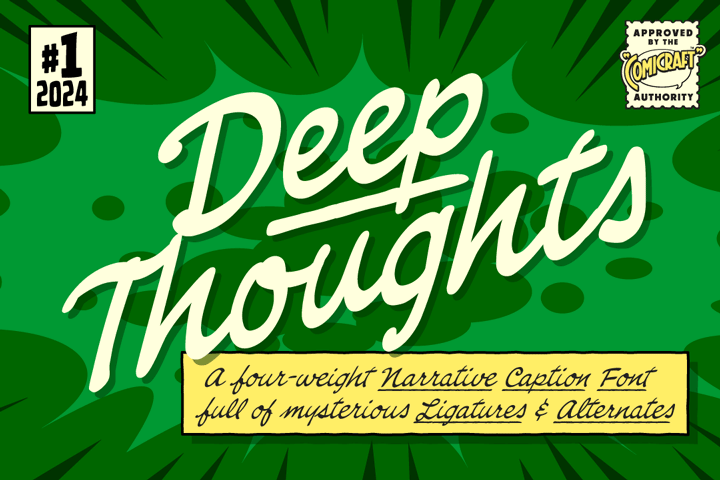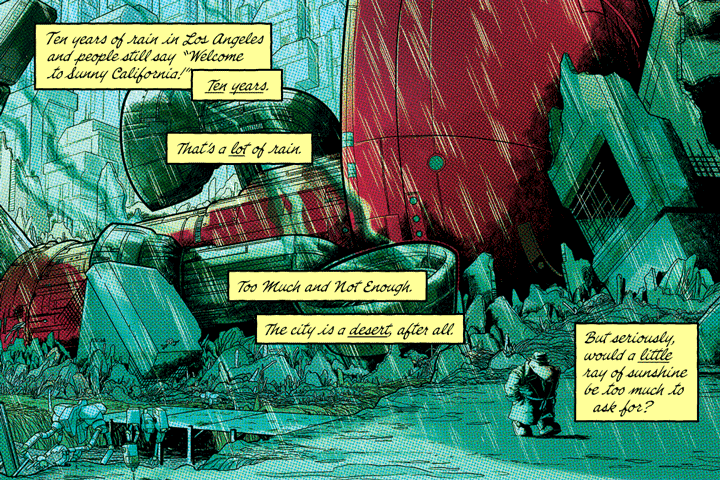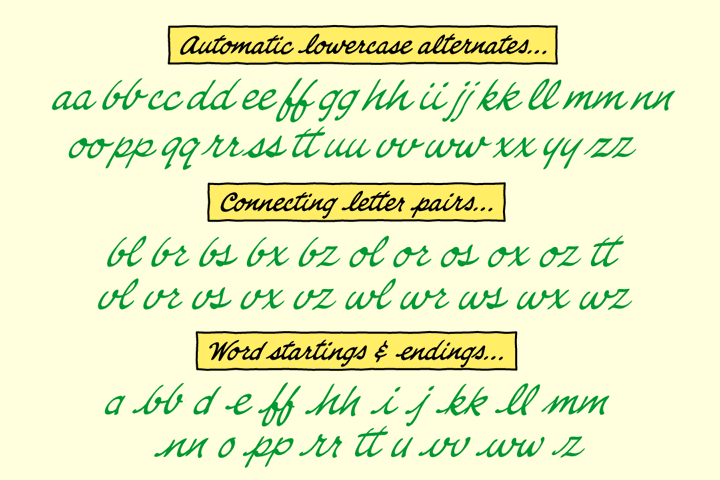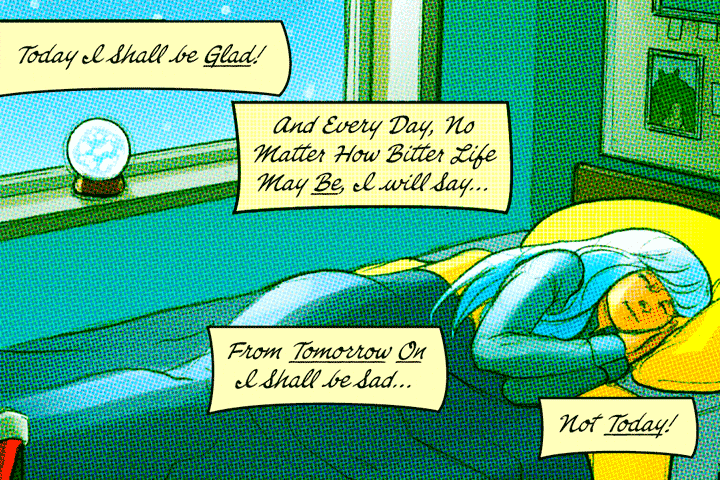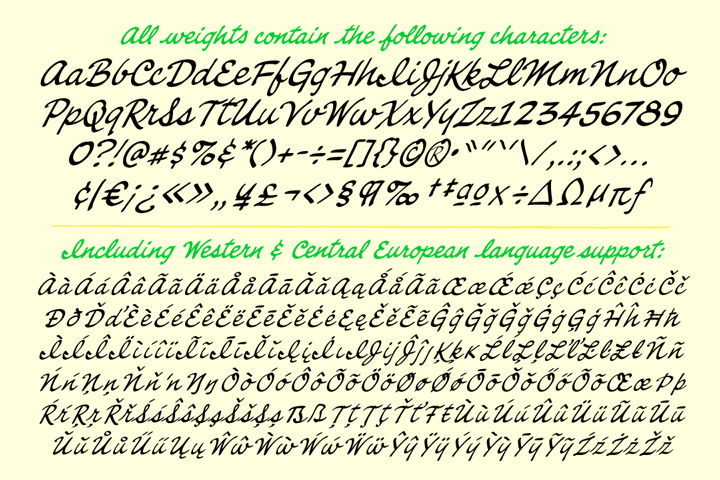
Dear Universe,
A child’s face can say a lot, can’t it? Especially the mouth part, which seems to say, “If God dwells inside of us, I sure hope he likes burritos, because that’s what he’s getting.”
A font can say a lot, too. Especially when it spells out words that make sentences like this one. Or paragraphs, like this one. This font is a very serious font that can write letters for you. You should probably sit down at a nice mahogany desk when you use this font, and stare into the middle distance thinking: “It’s sad, isn’t it, that a family can be torn apart by something as simple as wild dogs?”
But you have to laugh. Dad always said that laughter is the best medicine, which is probably why most of my siblings died of tuberculosis. I’d prefer to die in my sleep, like dad’s dad. Not screaming like the passengers on his bus.
I hope you like all the ligatures and joined-up parts of this letter. I didn’t learn cursive when I was at school, but I didn’t need to, did I? Because those awfully nice chaps at Comicraft developed Deep Thoughts for me. Pretty soon I won’t have to think at all!